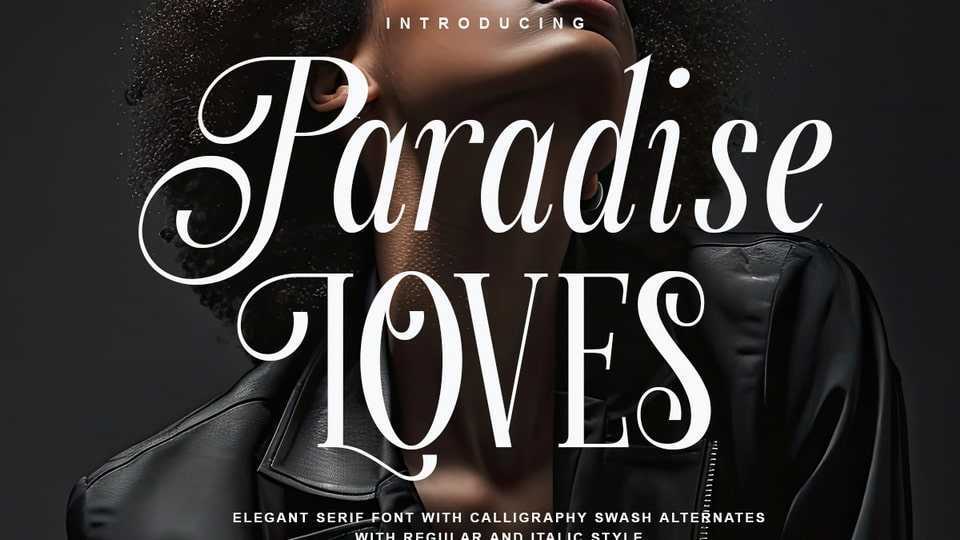
Download Paradise Loves font, an elegant serif typeface with calligraphy alternates. Carefully designed with consistent strokes, with beautiful italic version.